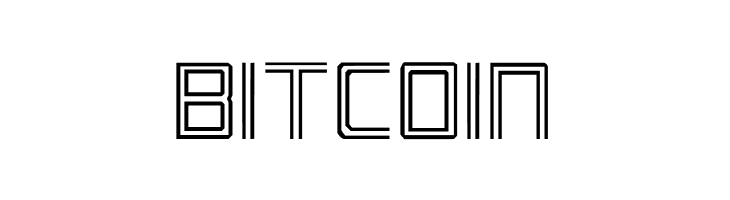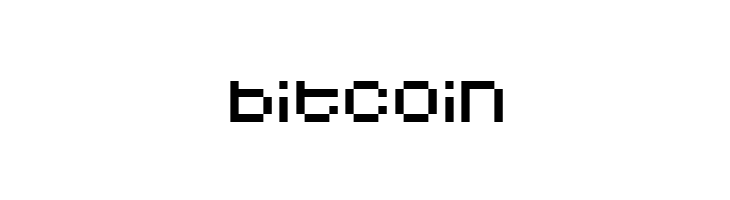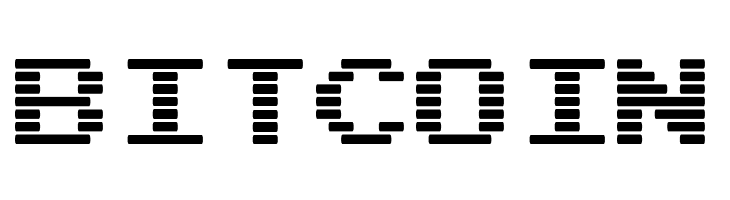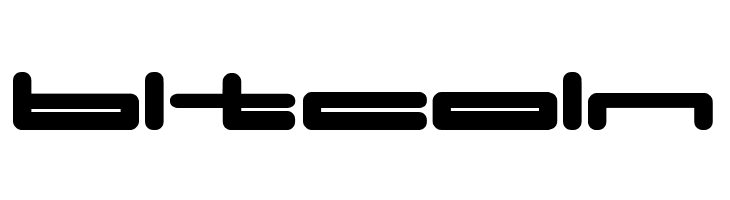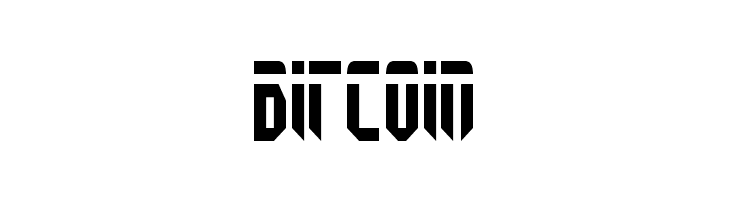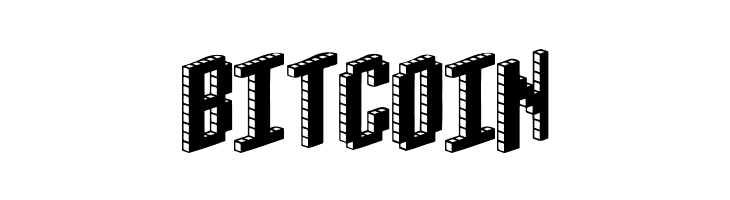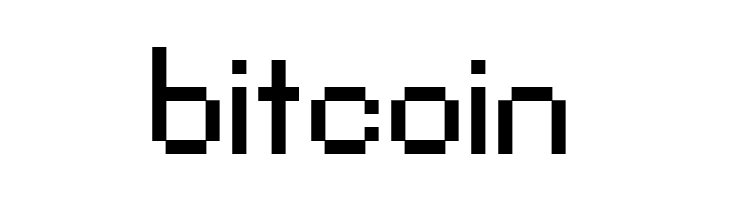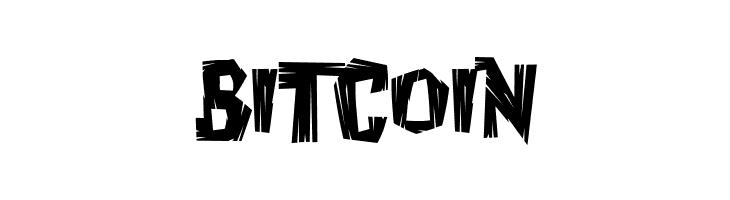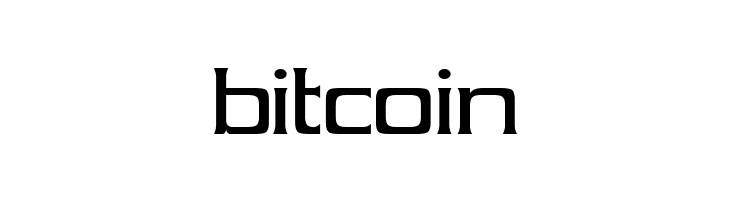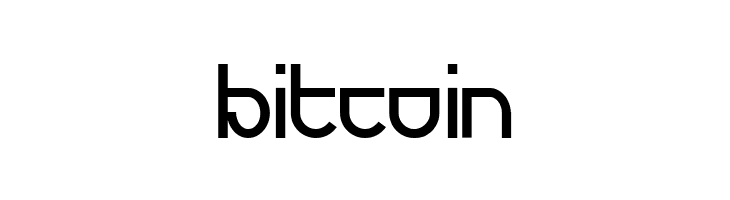
A bold, pixelated font with a geometric, retro digital style.
A bold, 3D block-style font with a geometric, modern aesthetic.
A bold, jagged font with a distressed, graffiti-like style.
A futuristic, geometric font with bold, clean lines and a modern aesthetic.
A bold, geometric font with a futuristic and industrial aesthetic.
A futuristic, geometric font with angular and linear strokes.
A pixelated, retro-style font with a blocky, digital appearance.
A digital, segmented font inspired by LED displays, perfect for tech-themed designs.
A bold, geometric font with a digital, pixelated style.
A pixelated, dot-based font with a modern, tech-inspired style.
A bold, geometric font with a futuristic and technical design.
A bold, futuristic font with geometric, block-like characters and a dynamic slant.
A pixelated, retro-style font with a blocky, digital appearance.